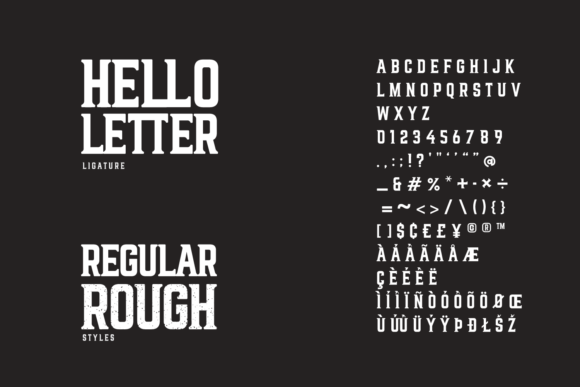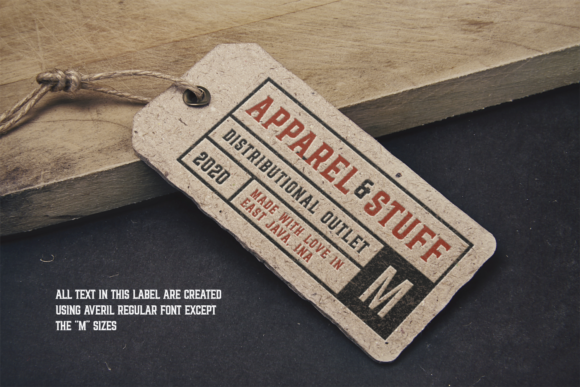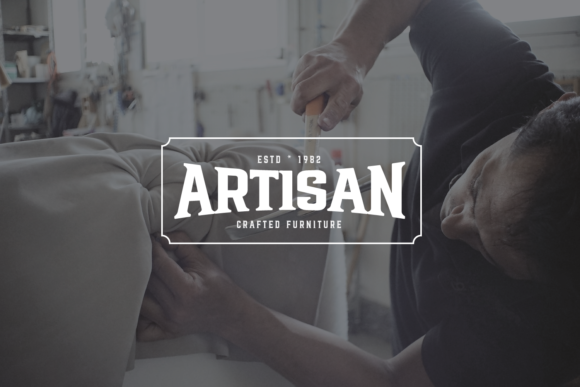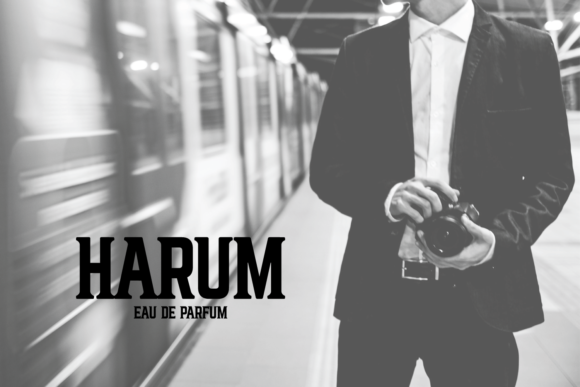
Averil Font: Elevate Your Creative Projects with a Casual Serif Style
Are you tired of using the same old fonts in your creative projects? Look no further than Averil, a casual serif font that’s sure to make your ideas stand out. In this article, we’ll dive into the world of Averil font, exploring its features, benefits, and uses, as well as provide tips on how to incorporate it into your designs.
What is Averil Font?
Averil is a casual serif font designed to add a touch of personality to your creative projects. Its unique blend of elegance and playfulness makes it perfect for a wide range of applications, from crafting and scrapbooking to graphic design and digital art.
One of the defining characteristics of Averil font is its serif style, which gives it a classic and sophisticated look. However, unlike traditional serif fonts, Averil has a casual and relaxed feel that’s perfect for creating friendly and approachable designs.
Features of Averil Font
So, what makes Averil font so special? Here are just a few of its key features:
- Unique letterforms: Averil font boasts a distinctive letterform style that’s both elegant and playful.
- Casual serifs: The font’s casual serifs give it a relaxed and friendly feel that’s perfect for creative projects.
- High legibility: Averil font is designed to be highly legible, making it perfect for use in a variety of contexts, from body text to headings.
- Versatile: Averil font is suitable for a wide range of creative projects, from digital art to crafting and scrapbooking.
Benefits of Using Averil Font
So, why should you choose Averil font for your creative projects? Here are just a few benefits:
- Adds personality: Averil font adds a touch of personality to your designs, helping them stand out from the crowd.
- Enhances creativity: The font’s unique style and casual feel can help inspire creativity and bring new ideas to life.
- Improves legibility: Averil font’s high legibility makes it perfect for use in a variety of contexts, from body text to headings.
Using Averil Font in Your Creative Projects
So, how can you use Averil font in your creative projects? Here are a few ideas to get you started:
- Crafting and scrapbooking: Averil font is perfect for adding a personal touch to your crafting and scrapbooking projects.
- Graphic design: The font’s unique style and casual feel make it perfect for use in graphic design projects, from brochures to posters.
- Digital art: Averil font can add a touch of personality to your digital art projects, from illustrations to paintings.
- Journaling and lettering: The font’s elegant and playful style makes it perfect for use in journaling and lettering projects.
Tips for Getting the Most Out of Averil Font
Here are a few tips for getting the most out of Averil font:
- Experiment with different sizes: Averil font looks great in a variety of sizes, from small body text to large headings.
- Pair with other fonts: Try pairing Averil font with other fonts to create unique and interesting combinations.
- Use in combination with images: Averil font looks great in combination with images, from photographs to illustrations.
- Don’t be afraid to get creative: Averil font is a versatile font that can be used in a wide range of creative projects, so don’t be afraid to experiment and try new things.
In conclusion, Averil font is a casual serif font that’s perfect for adding a touch of personality to your creative projects. With its unique letterforms, casual serifs, and high legibility, Averil font is sure to make your ideas stand out. So why not give it a try and see the difference it can make?